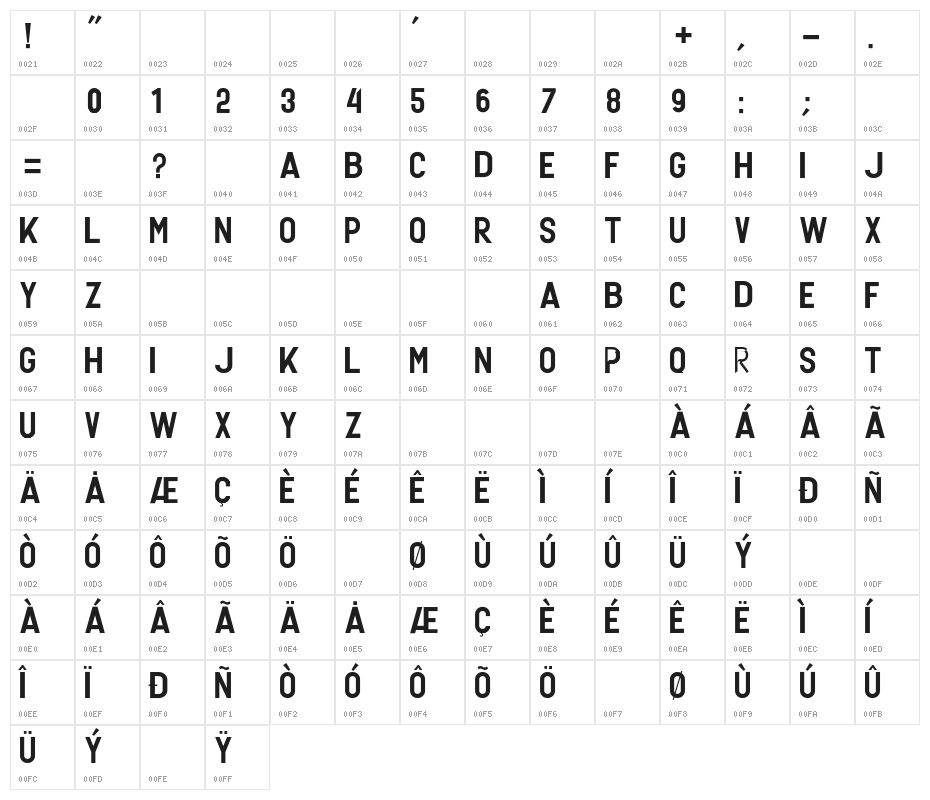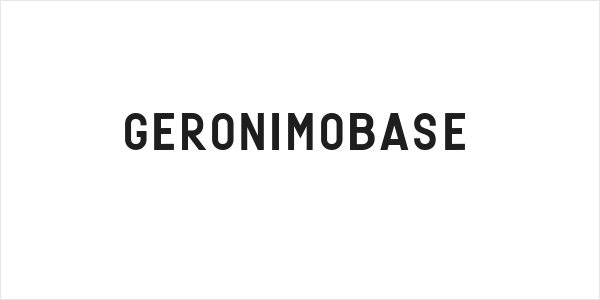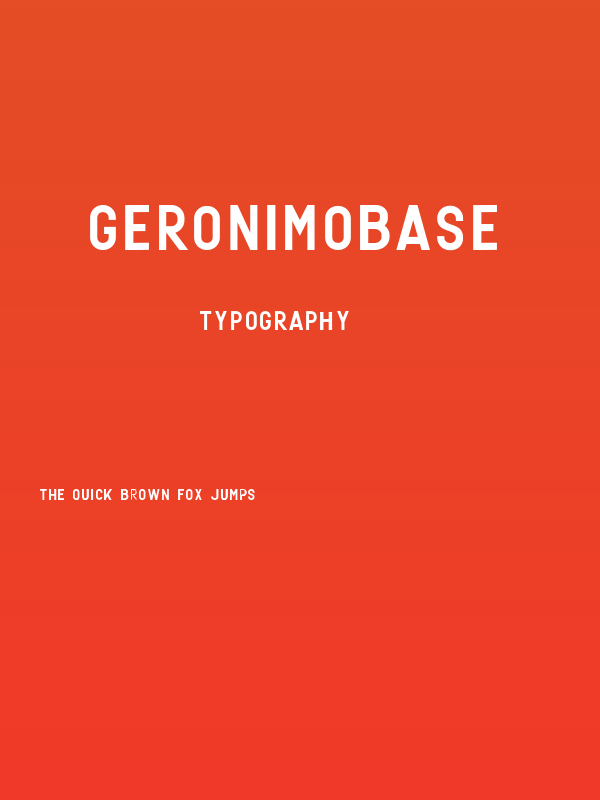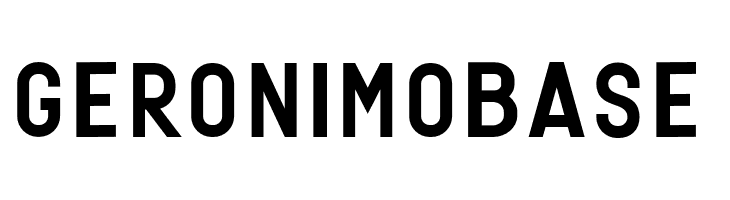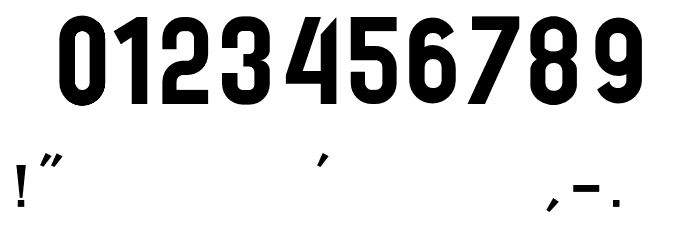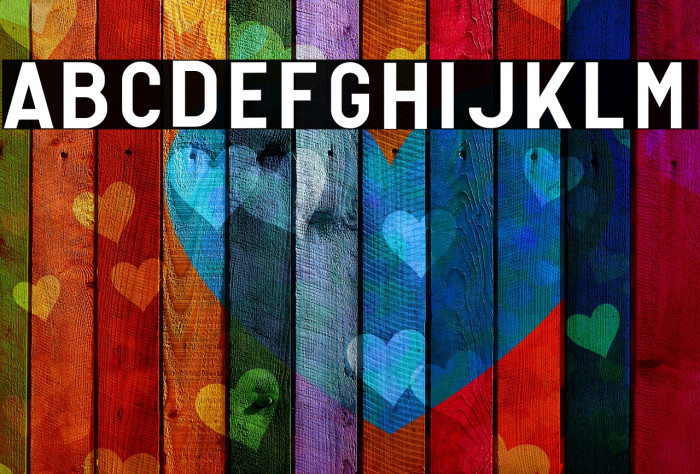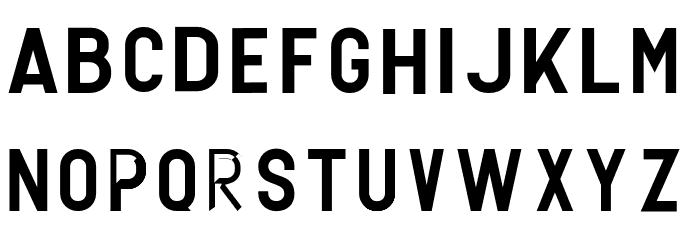
GERONIMOBASE Font
✎ Sans Serif
| حالة الاستخدام | Headlines, Logos, Branding |
| مشاريع مقترحة | Ideal for branding, headlines, posters, and digital media where a strong and modern presence is desired. |